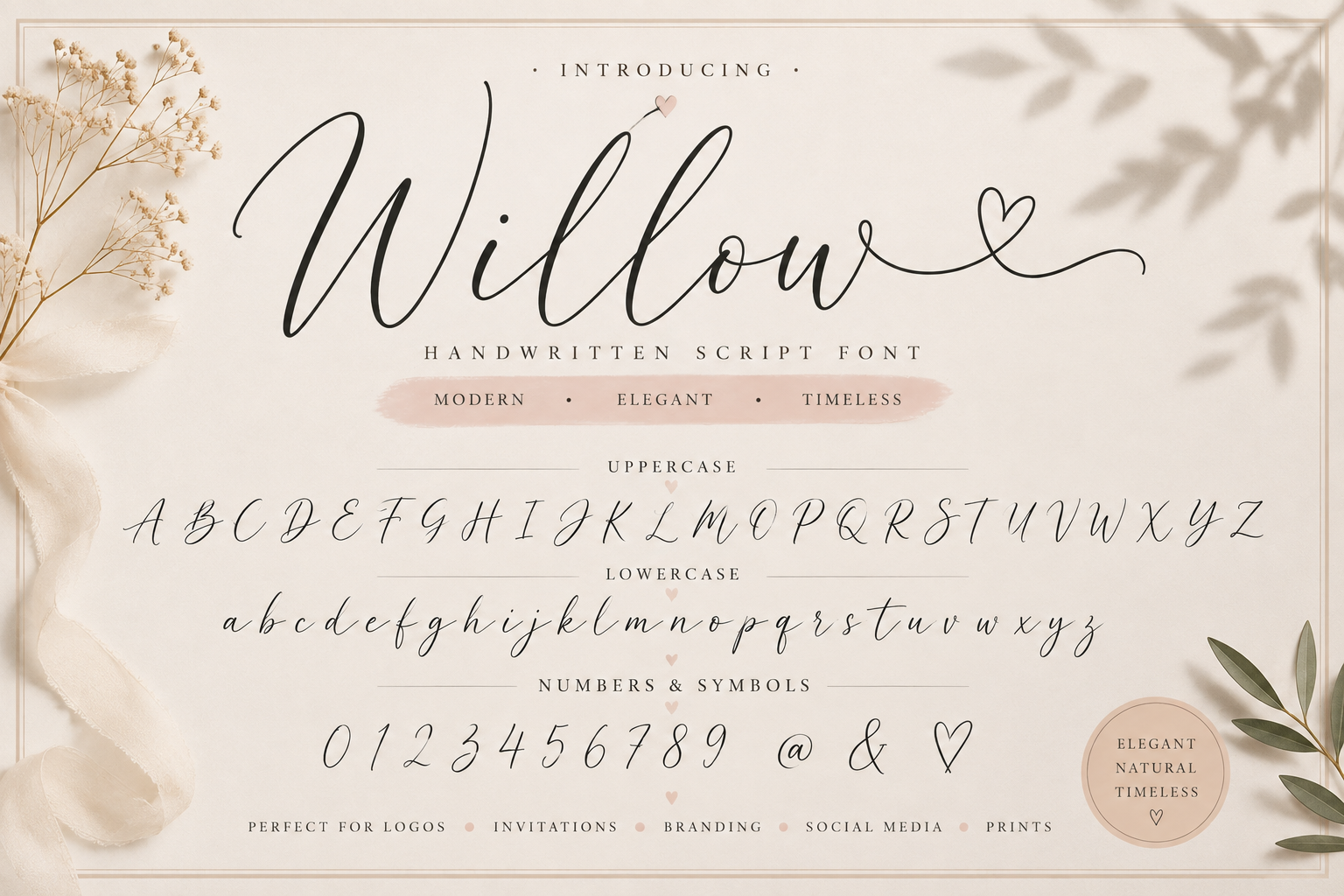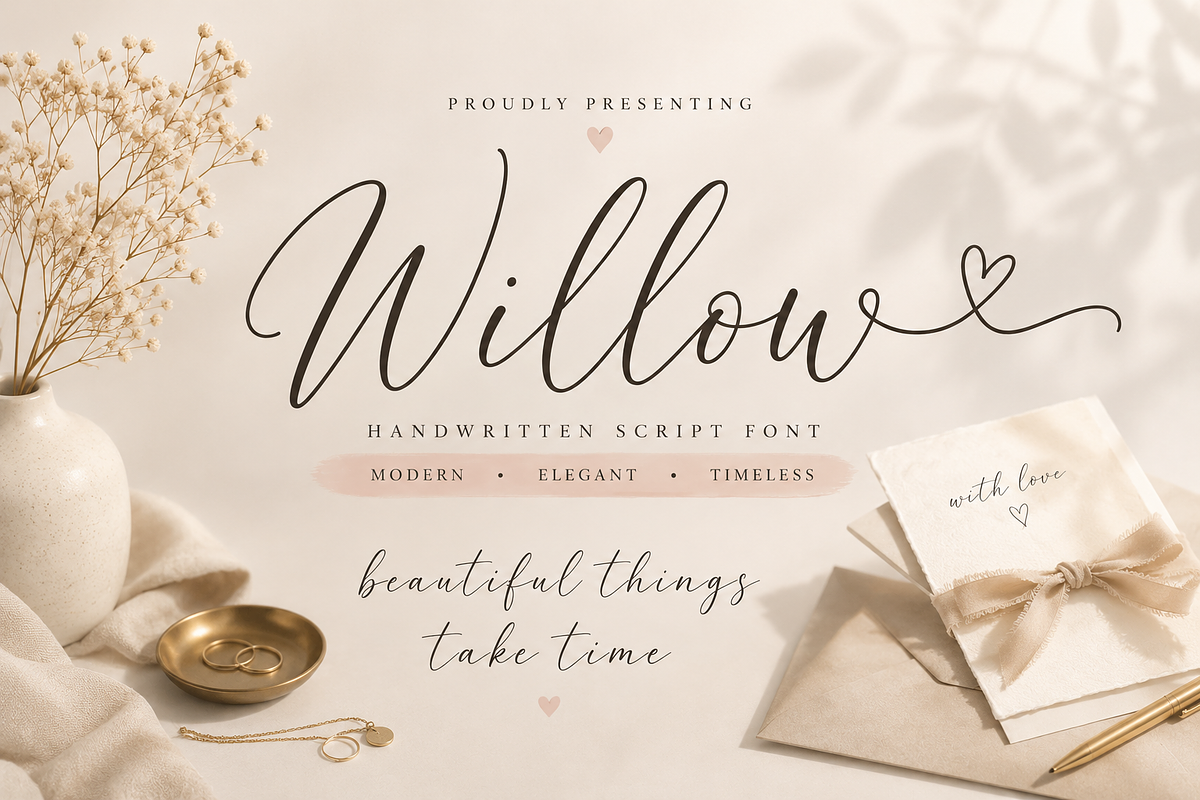
Elegant Handwritten Script Font
Introducing a modern and elegant handwritten script font designed to bring a sophisticated, romantic and personal touch to your creative projects.
With its graceful flowing strokes, delicate curves and stylish handwritten character, this script typeface is perfect for creating beautiful logos, wedding stationery, invitations, branding, packaging, social media graphics and personalized designs.
• Uppercase A–Z • Lowercase a–z • Numbers 0–9 • @ symbol • & symbol • Heart symbol • Elegant handwritten script style • Modern and romantic aesthetic • Perfect for feminine and luxury designs • Suitable for personal and commercial design projects
Create effortlessly elegant designs with a handwritten look that feels personal, timeless and sophisticated.